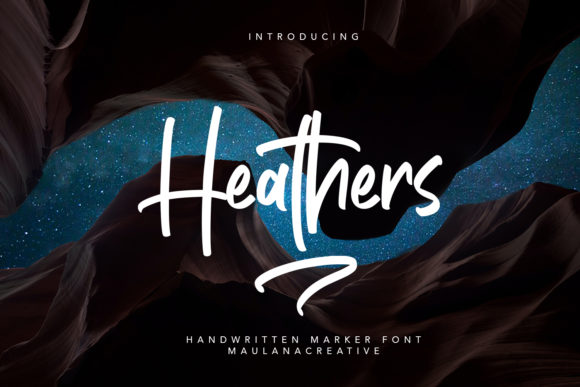
Immerse yourself in the world of Heathers Font, a breathtaking script font family that captures the essence of timeless elegance and contemporary charm. Crafted with meticulous attention to detail by the renowned Maulana Creative, Heathers Font stands as a testament to the beauty and versatility of handwritten typography.
Step into a world where your digital creations come alive with the allure of Heathers Font. Its captivating strokes, reminiscent of fine calligraphy, effortlessly elevate your designs to new heights of sophistication and allure. Whether you're crafting captivating digital posters, enchanting social media graphics, or simply adding a touch of personal flair to your projects, Heathers Font is the ultimate choice for discerning creatives.
Indulge in the creative freedom that Heathers Font offers. Its carefully balanced curves and delicate flourishes lend a touch of whimsy and elegance to any project, making it the perfect choice for invitations, greeting cards, and branding materials that demand a touch of unique charm.
With each character meticulously crafted to evoke a sense of authenticity and charm, Heathers Font transcends the boundaries of ordinary typography. It breathes life into your digital creations, captivating your audience with its timeless beauty and contemporary flair. Embrace the power of Heathers Font and unlock a world of creative possibilities that will leave a lasting impression.